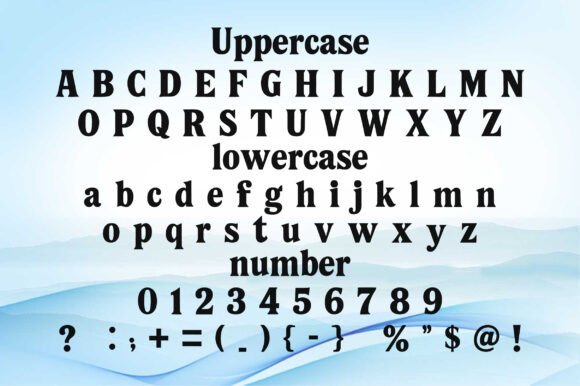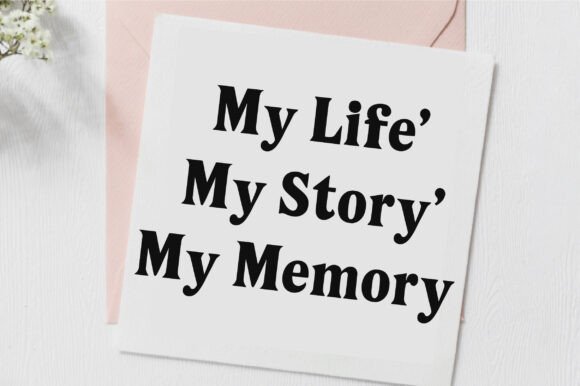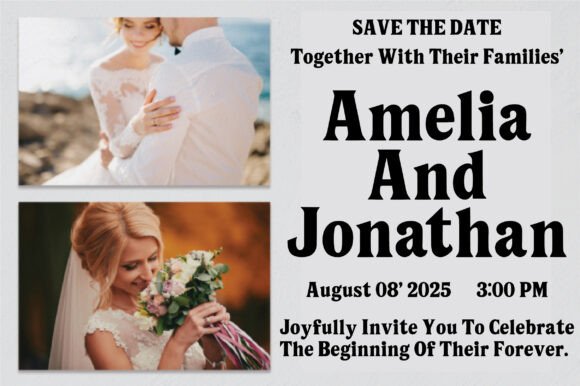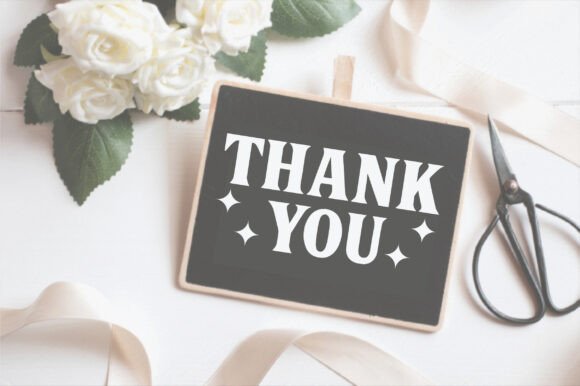
Introducing Gravina: The Ultimate Bold Serif Display Font
Imagine working on a high-end branding project, striving to create a luxurious feel that resonates with your client’s vision. You’re meticulously crafting every detail, from the color palette to the typography, when suddenly, you hit a roadblock: finding the perfect font. This was me, not too long ago, until I discovered Gravina – a powerhouse of a font that brings together classic elegance and modern confidence.
The Design Moment: When Fonts Matter
I recall a specific project where my client wanted a sophisticated, yet impactful presence for their luxury goods brand. I explored countless fonts, but none seemed to strike the right balance between refinement and boldness. That was until I stumbled upon Gravina. Its substantial weight, clear structure, and refined serifs immediately caught my attention. I knew right then and there that Gravina was the perfect fit.
An Honest Review of Gravina
- ✨ Timeless yet Fresh Look: Gravina’s letterforms feature a high contrast between thick and thin strokes, giving it a sophisticated and established look that is both timeless and fresh.
- ✅ High Readability: Its clear, imposing structure makes it highly readable even at large sizes, ensuring your message is conveyed with strength and class.
- 💼 Versatility: Gravina excels in branding for luxury goods, editorial headlines in magazines, formal advertising campaigns, corporate identity, and packaging for high-end products.
While Gravina is an exceptional font, there are a few minor considerations to keep in mind:
- 🤔 Limited Use in Body Text: Due to its bold nature, Gravina might not be the best choice for lengthy body text. It’s ideal for headlines and titles where you want to make a statement.
- ⚠️ Careful Kerning Required: As with any font, especially those with high contrast strokes, careful attention to kerning is necessary to ensure optimal readability and aesthetics.
Exploring Alternatives to Gravina
While Gravina is unique, there are other fonts that share similar qualities. Here are a few alternatives:
- Playfair Display: Known for its elegant and luxurious feel, Playfair Display is perfect for high-end branding and editorial design.
- Didot: With its classic and sophisticated look, Didot is ideal for fashion and luxury brands looking for a refined aesthetic.
- Bodoni: For a more dramatic and impactful look, Bodoni offers a strong presence suitable for headlines and titles.
- Merriweather: This serif font offers a classic and elegant feel, making it suitable for editorial and publishing projects.
The Backstory of Gravina
Gravina’s design inspiration stems from the need for a font that embodies both classic sophistication and modern boldness. The creator aimed to craft a typeface that would serve as a bridge between traditional refinement and contemporary confidence. The result is a font that not only commands attention but also exudes a sense of luxury and authority.
Q: What makes Gravina suitable for luxury brands?
A: Gravina’s classic elegance, combined with its modern confidence and high readability, makes it an excellent choice for luxury brands looking to convey sophistication and authority.
Q: Can Gravina be used for digital media?
A: Absolutely! Gravina’s clear structure and substantial weight ensure it remains legible and impactful even on digital platforms, making it suitable for websites, social media, and digital advertising.
Q: Is Gravina versatile enough for various design projects?
A: Yes, Gravina’s versatility allows it to excel in a wide range of projects, from branding and editorial design to advertising and packaging for high-end products.
Q: Does Gravina support OpenType features?
A: Yes, Gravina supports OpenType features, including stylistic alternates and glyphs, which can be used to add more character and variety to your typography.